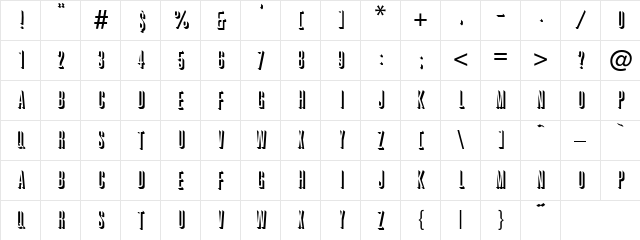
Cranston Regular
Design Context for Cranston Typeface
Cranston is a composed and adaptable typeface that performs quietly and consistently across a wide range of design contexts.